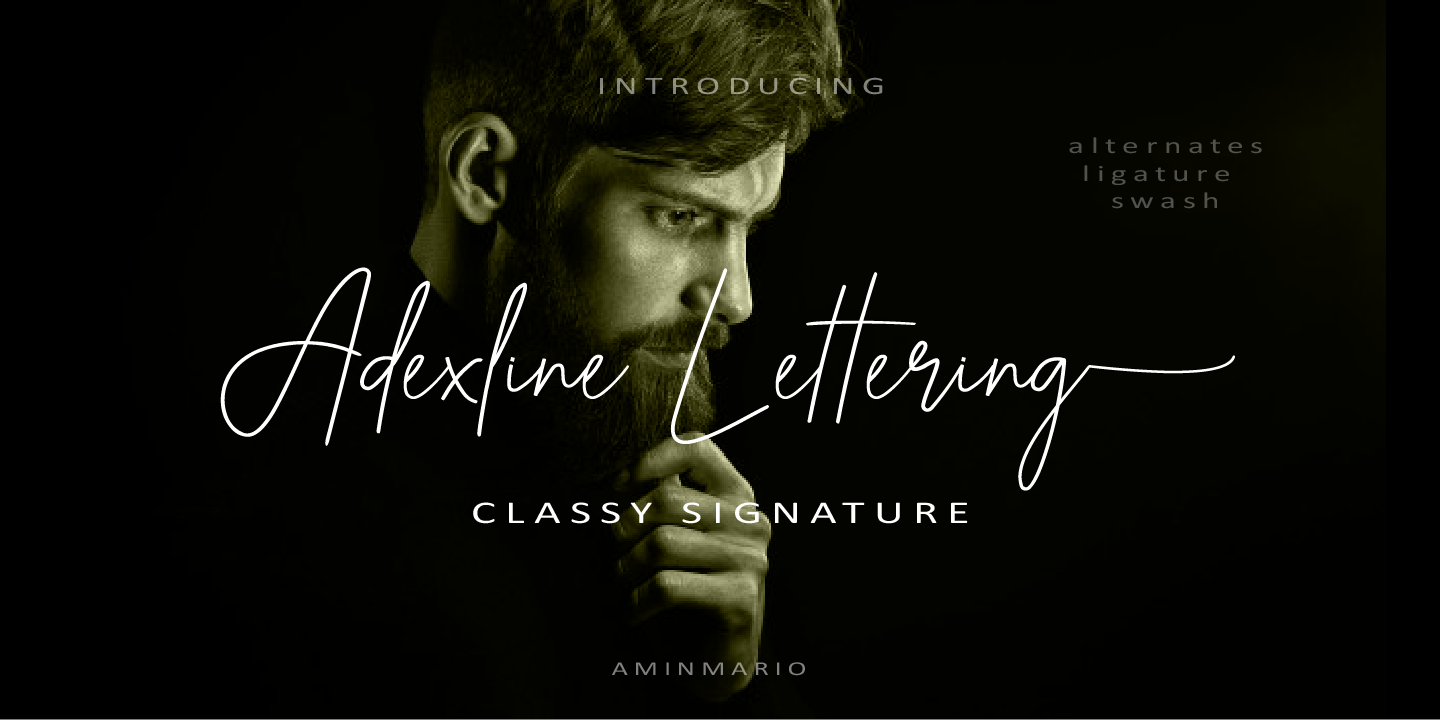
Adexline Lettering Font Free Download is a modern, elegant script typeface with a smooth handwritten style, perfect for adding a personal and artistic touch to your projects. Ideal for wedding invitations, logos, branding, greeting cards, product packaging, and social media graphics, this font brings sophistication, charm, and a handcrafted feel to any design. Adexline Lettering Font offers flowing curves and graceful strokes that make your text stand out beautifully.
With Adexline Lettering Font Free Download, you’ll receive a complete set of uppercase, lowercase, numbers, and essential punctuation, providing flexibility for a wide range of creative applications. Whether you’re designing personalized stationery, promotional materials, or stylish headlines, this font maintains readability while adding an elegant flair.
Enhance your creative projects with Adexline Lettering Font Free Download. Its elegant, handwritten style makes it the perfect choice for designs that require beauty, warmth, and a touch of sophistication.